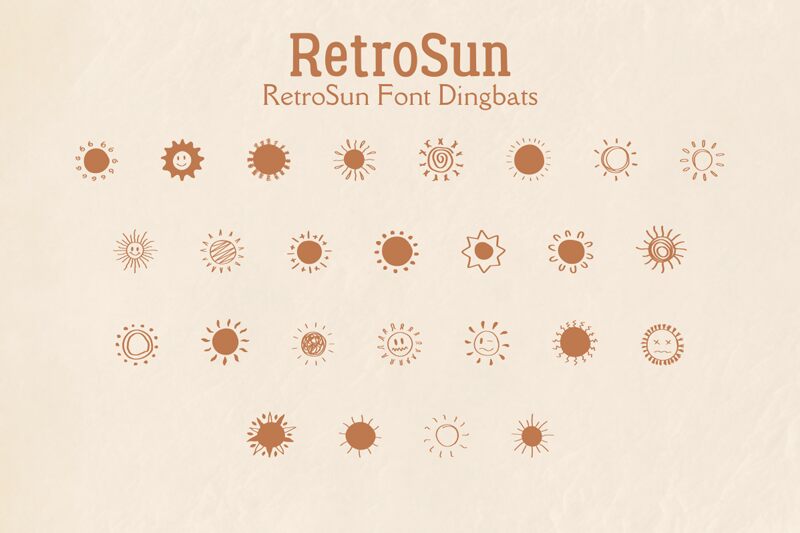
Retro Sun font by Tri Sakti Oktaviano, is a dingbats font featuring nature and sun motifs with a decorative and playful, hand-drawn appearance. It showcases varying line thicknesses, abstract shapes, contrasting black and white elements, and exudes a whimsical mood with varied textures.
This font is perfect for use in whimsical branding projects. Awesome for any creative project that needs to come across as original and luminescent Beautyful style for postcards. Use it for UIUX design projects like UI overlays. Be inspired by its organic feel in your photography-style fonts. Use Retro Sun font to sketch logo designs! Perfectly-in-sync for all of these uses.